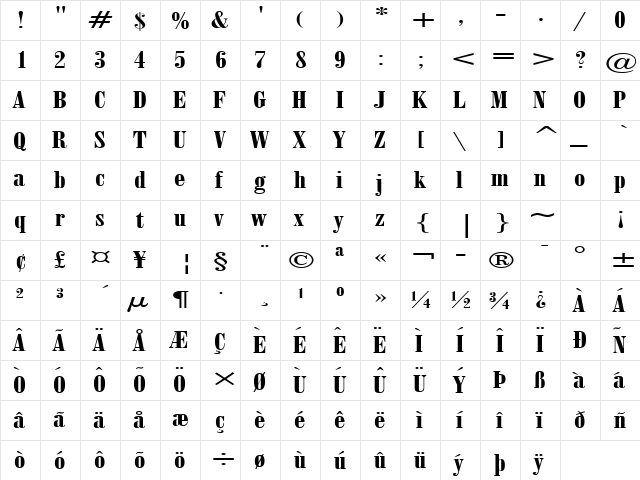
June 15 Extended Normal
Design Context for June 15 Extended Typeface
June 15 Extended takes a measured approach to typography — its balanced proportions and neutral character make it a reliable workhorse for both digital and print work.